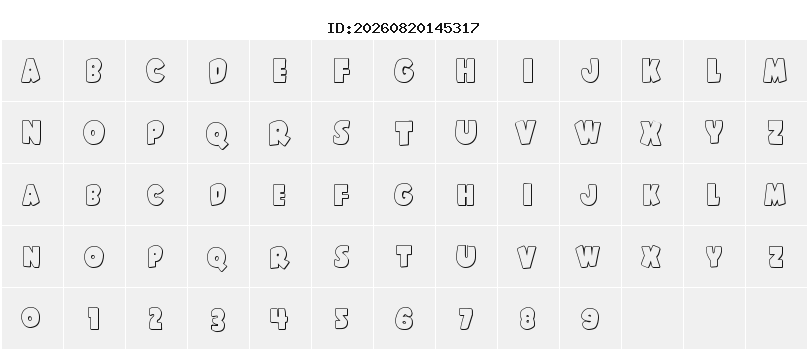
Shablagoo Outline Preview
• Font Name: Shablagoo Outline
• Font Style: Outline
About Shablagoo Outline.ttf
Shablagoo Outline.ttf is a modern, elegant sans-serif font designed for ultimate readability and visual harmony. Perfect for branding, headlines, web design, and print materials.